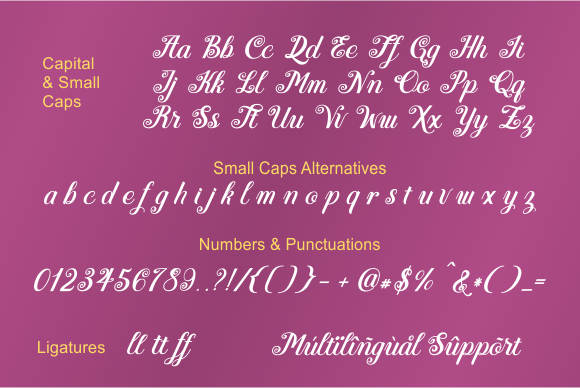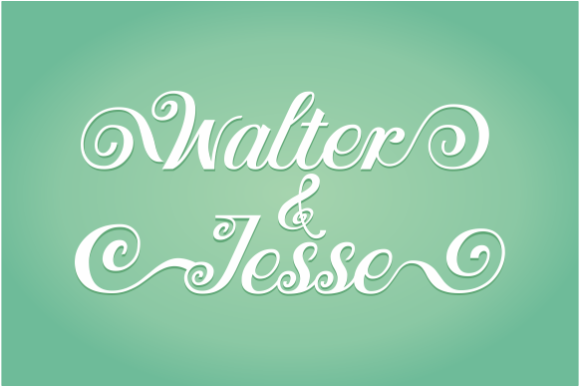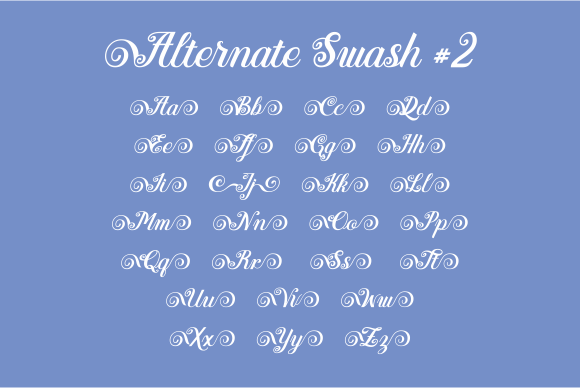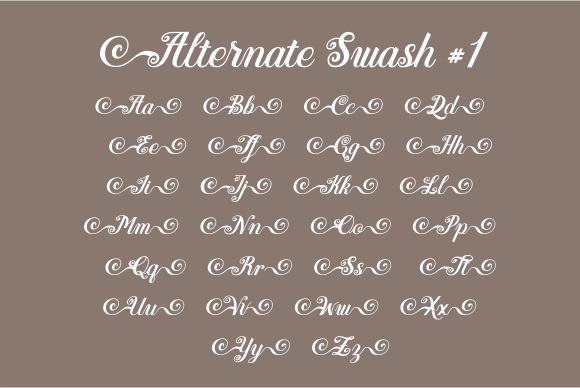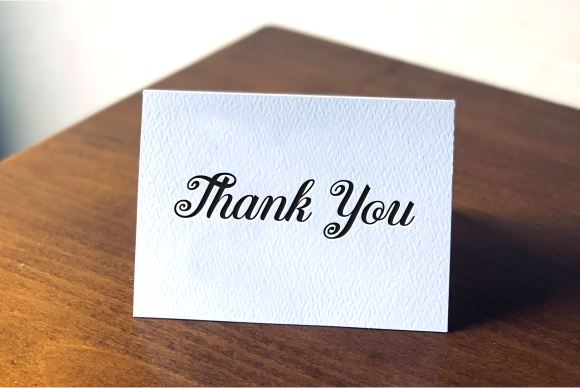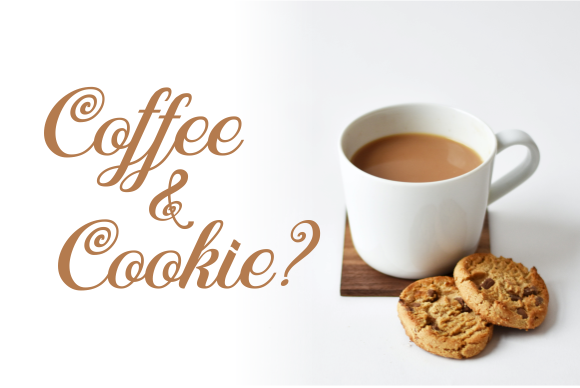
The Designer’s Delight: Unlocking the Elegance of Clement Times Font
This delicate and well-balanced script font has since become a staple in my design toolkit, and I’m excited to share its beauty with you. In this article, we’ll dive into the world of Clement Times, exploring its features, and how to make the most of it in your design projects.
Clement Times has won my heart with its:
- ✨ Elegant and refined strokes, perfect for luxury branding and high-end designs
- 💫 Beautifully crafted to add a touch of sophistication to any design project
However, I do have to mention a few minor quirks:
- 🤔 Some users might find the font a bit too delicate for certain design applications
- ⚠️ As with any script font, it may not be suitable for body text or large blocks of content
The Story Behind Clement Times
Clement Times was crafted with love and care by a talented font designer who aimed to create a luxurious and refined script font. Inspired by classic typography and modern design trends, Clement Times is the perfect blend of elegance and sophistication.
| Font Name | Clement Times Font |
| Author | iyon.nurdiansyah |
| Is Clement Times suitable for body text or large blocks of content? | While Clement Times is a beautiful font, it may not be the best choice for body text or large blocks of content. It’s best suited for headlines, titles, and short paragraphs. |